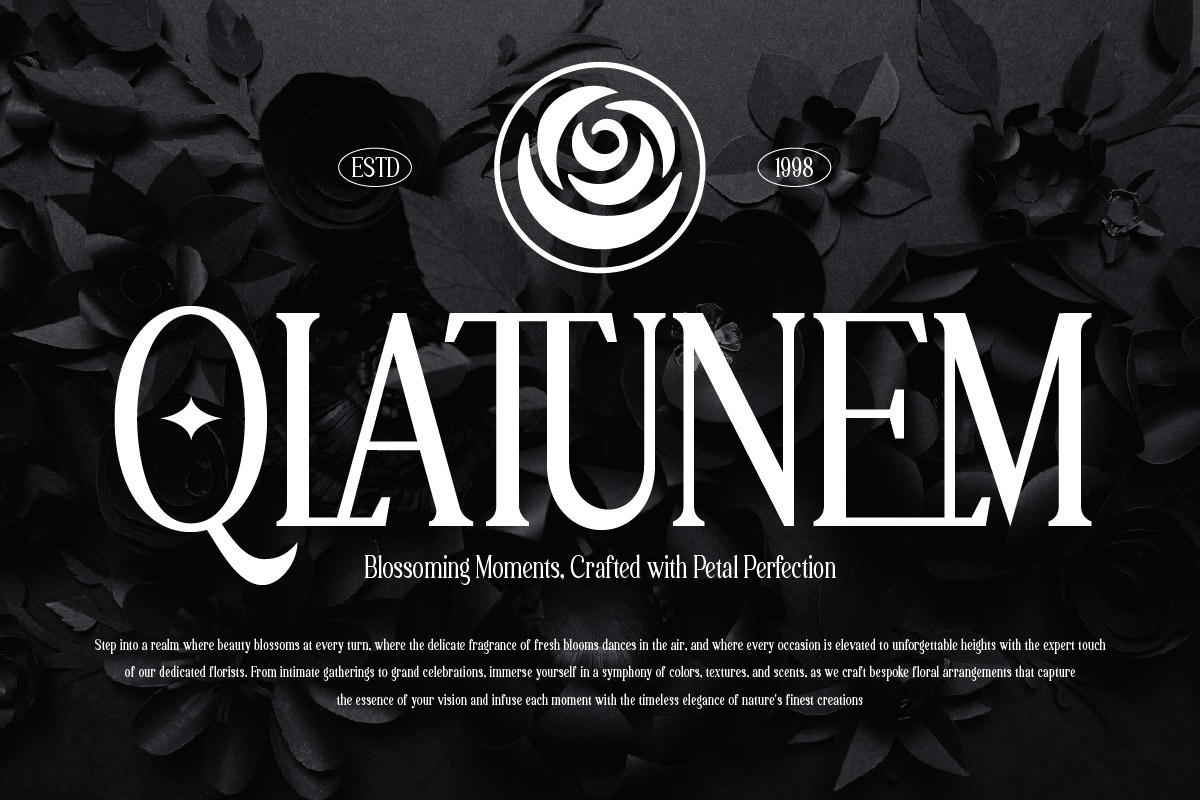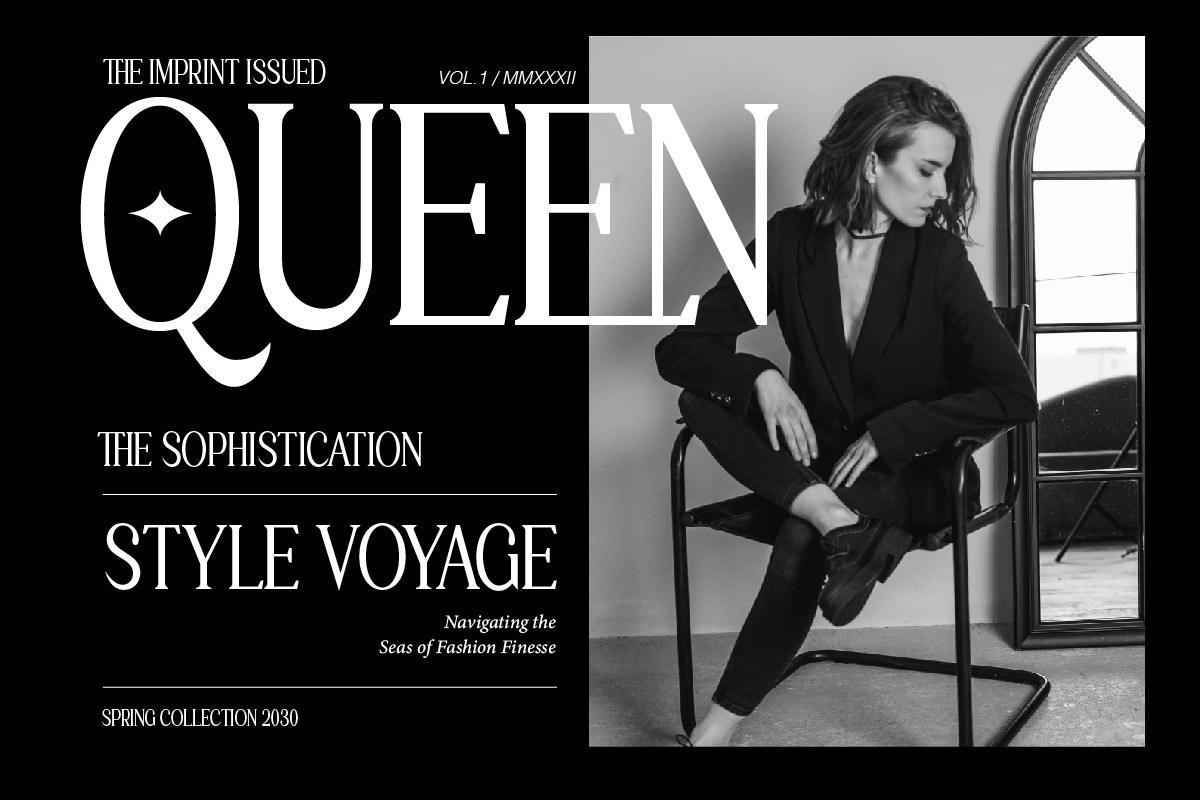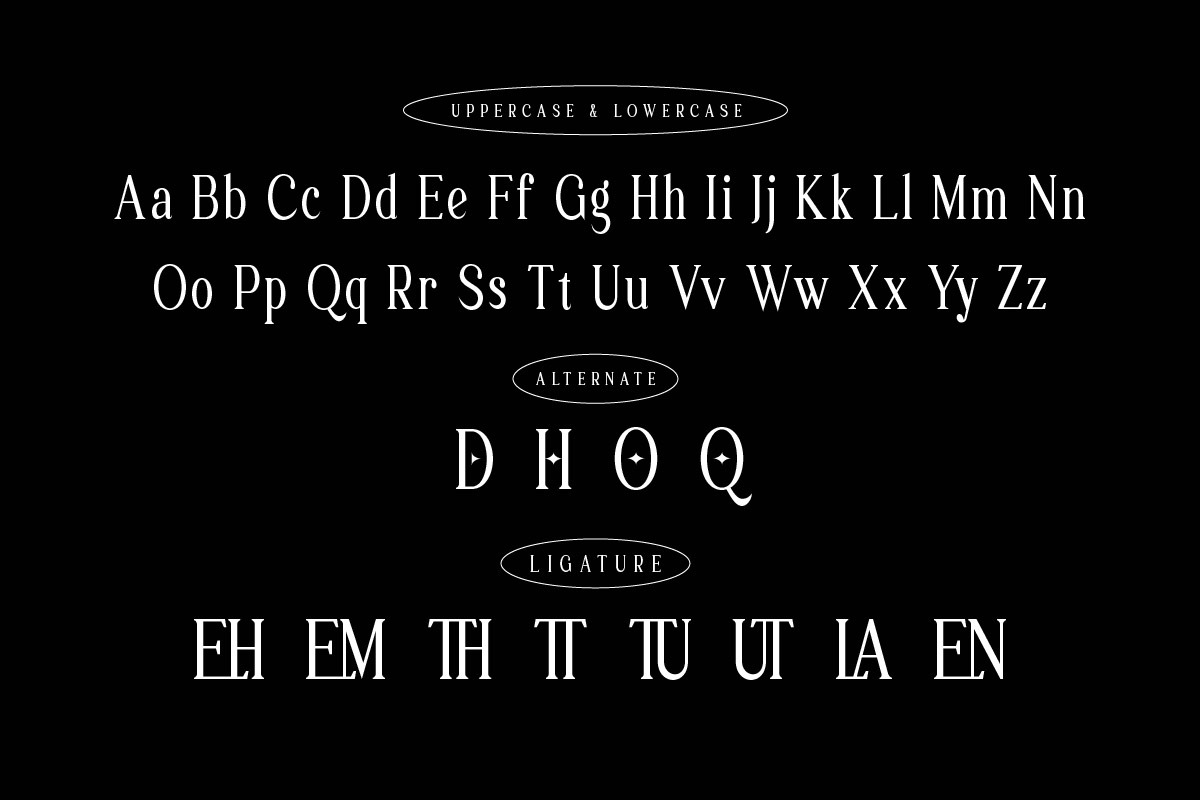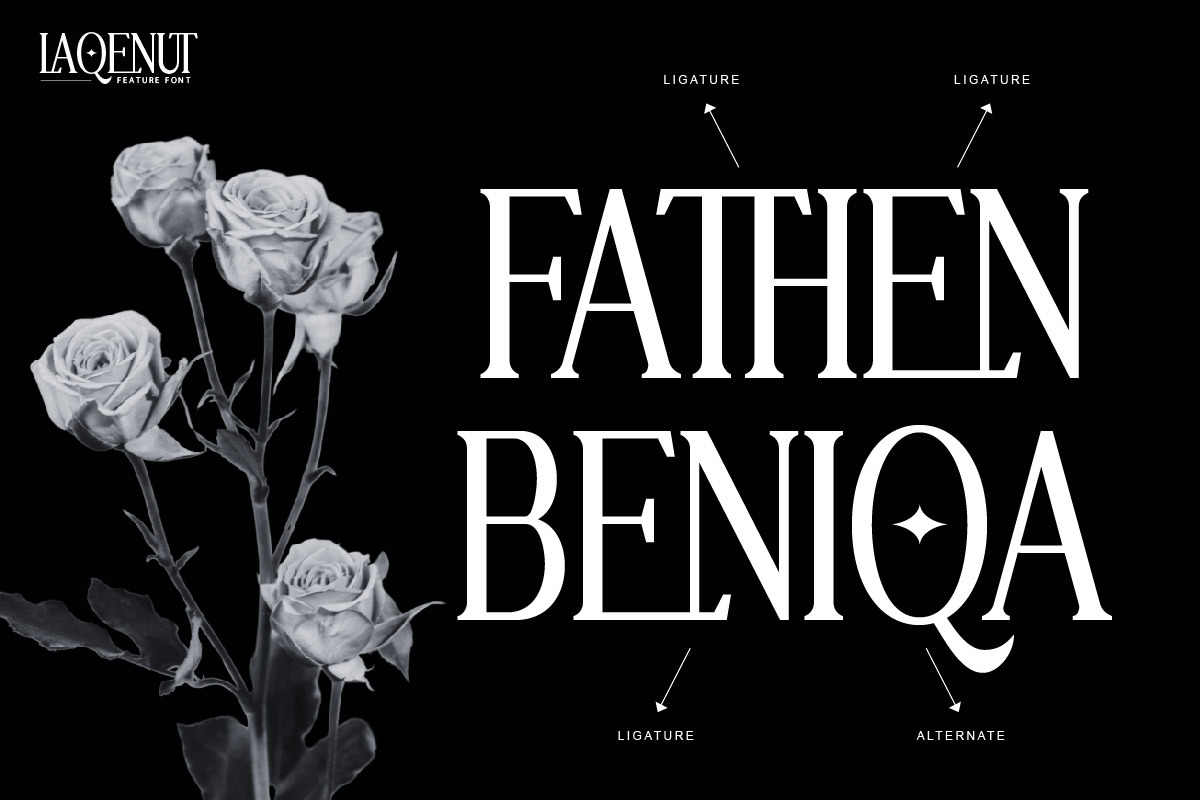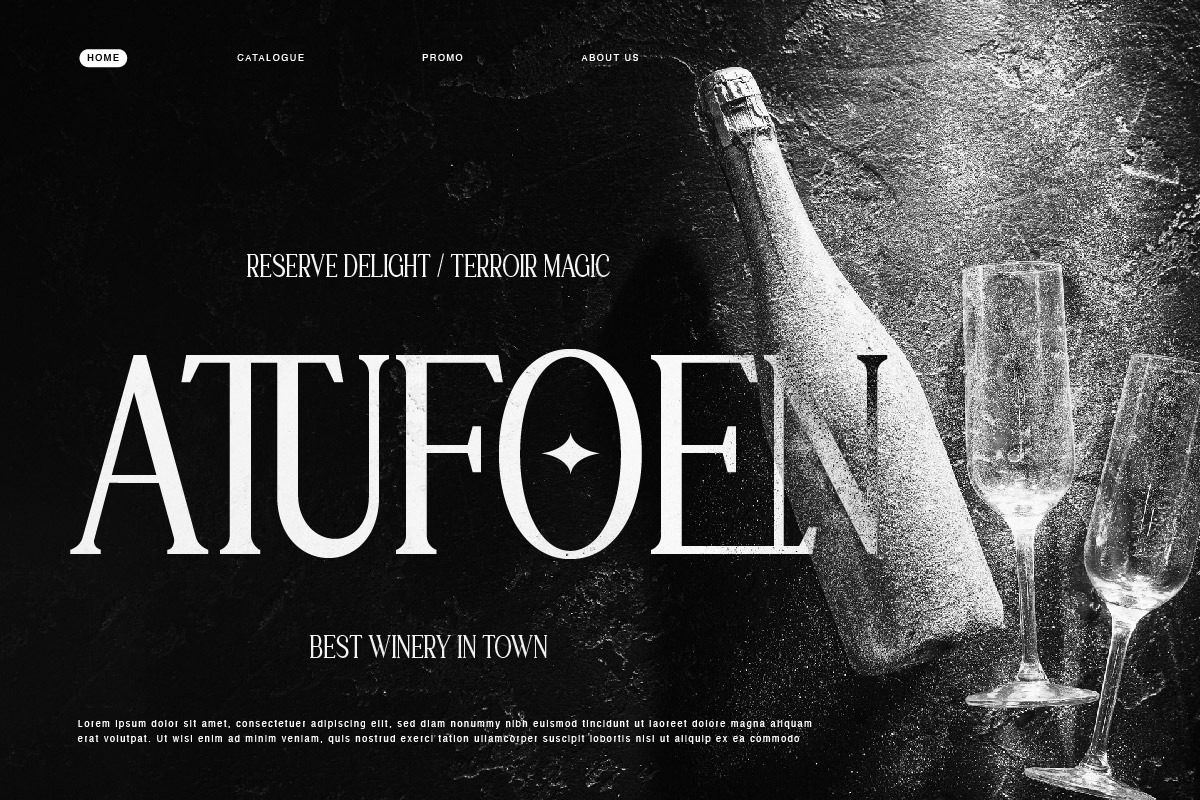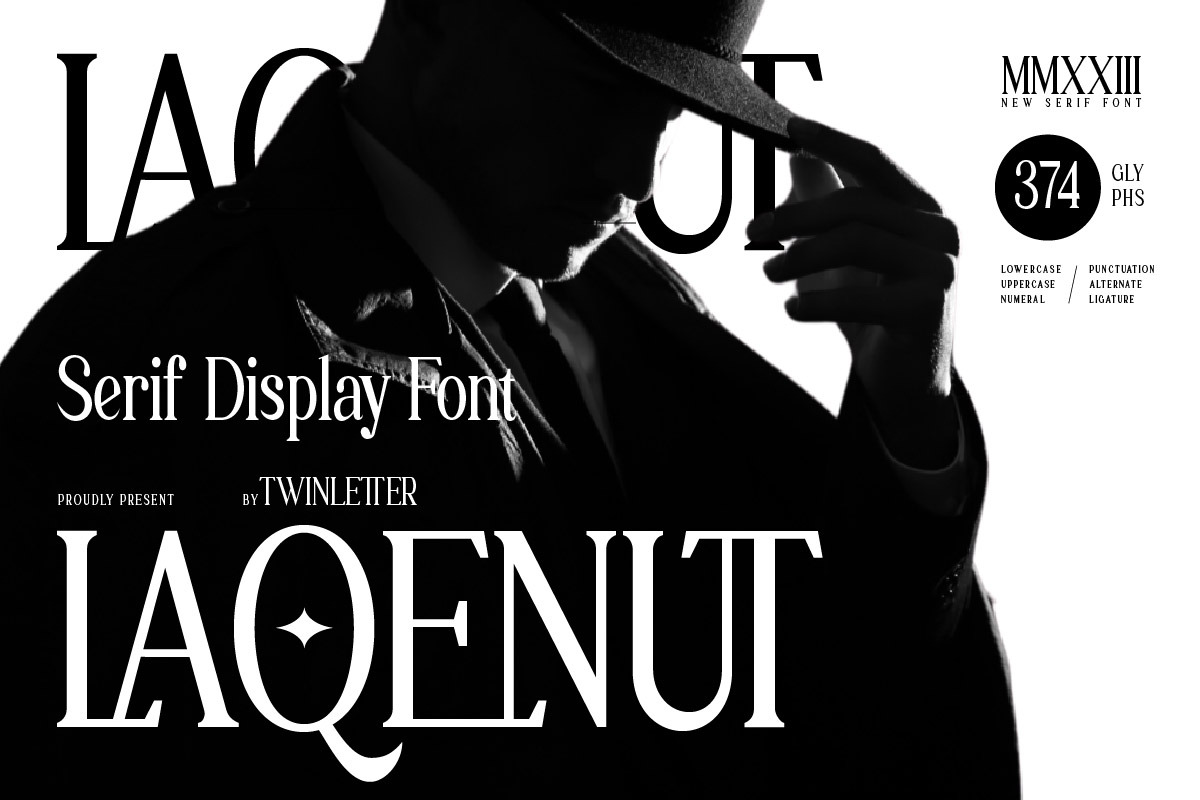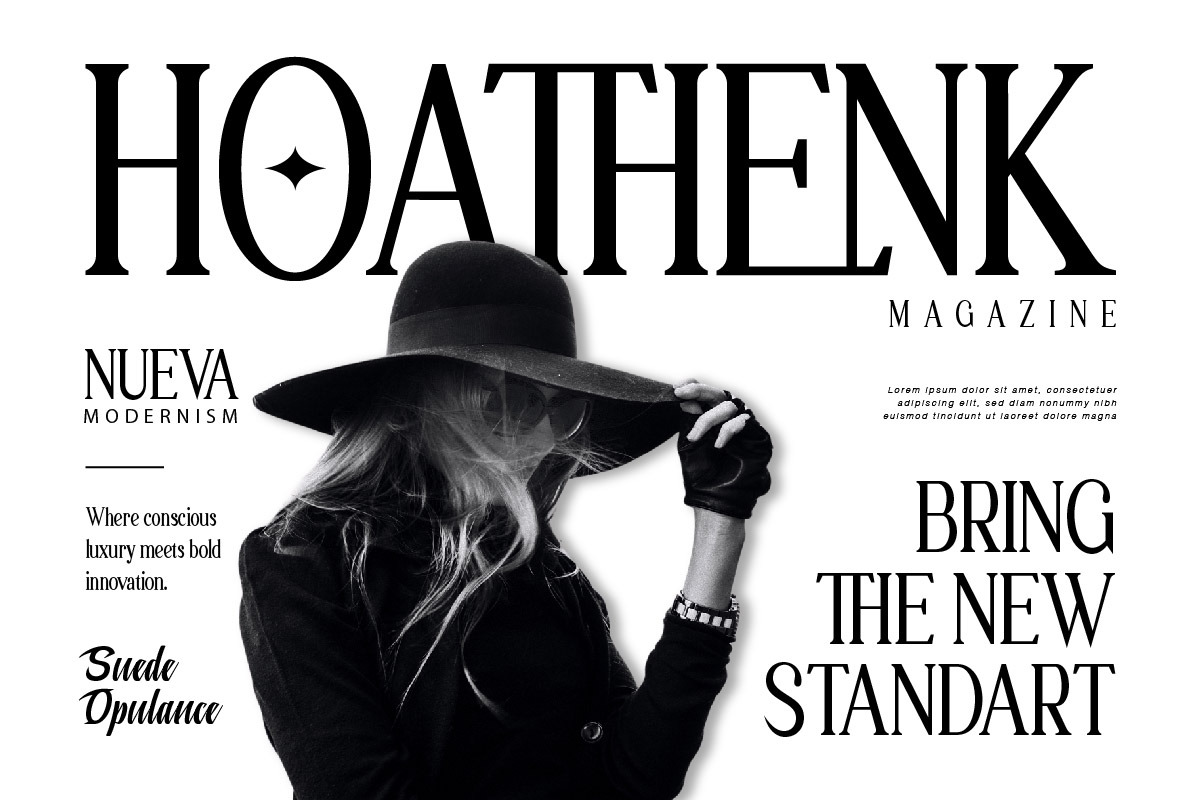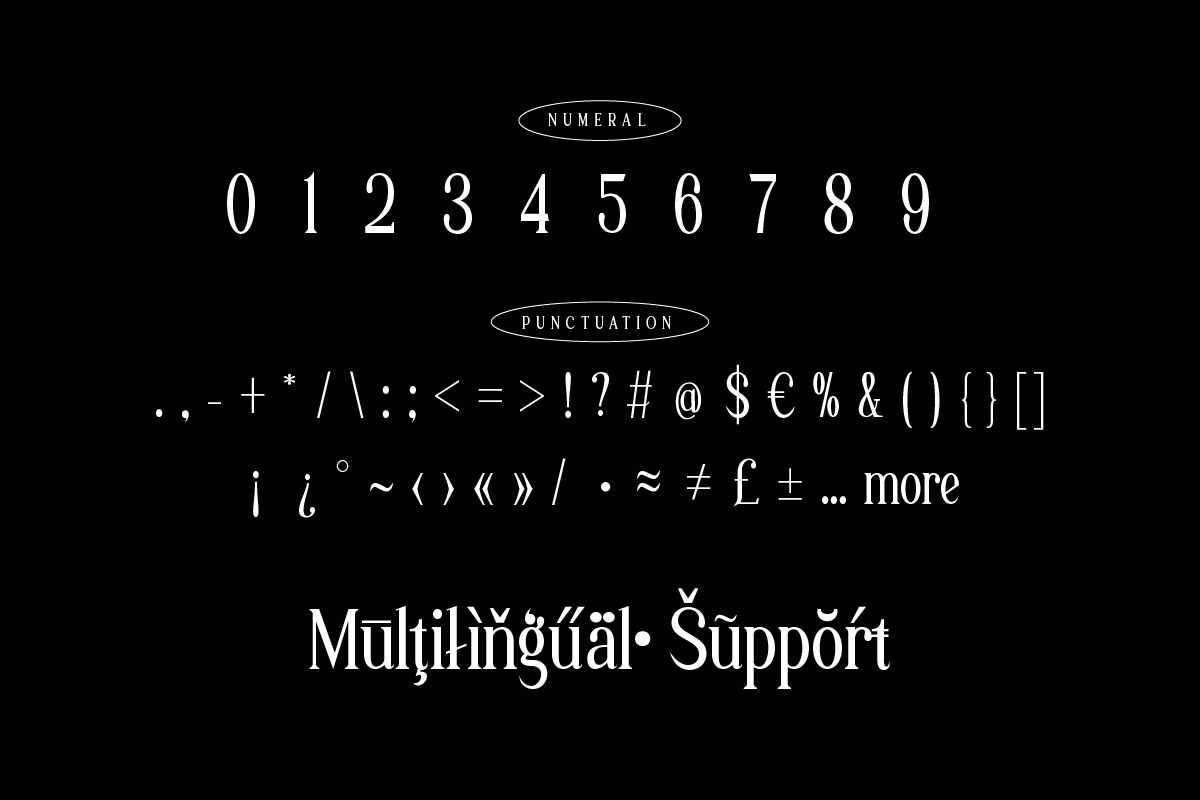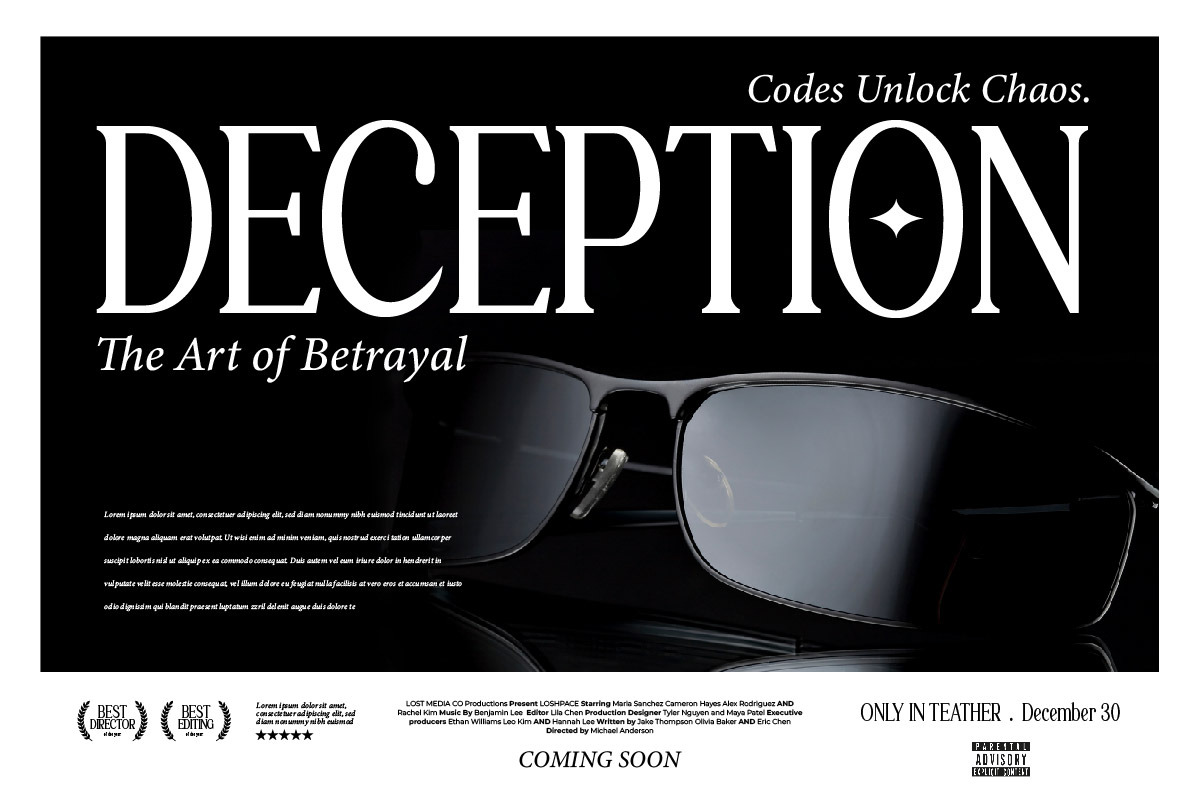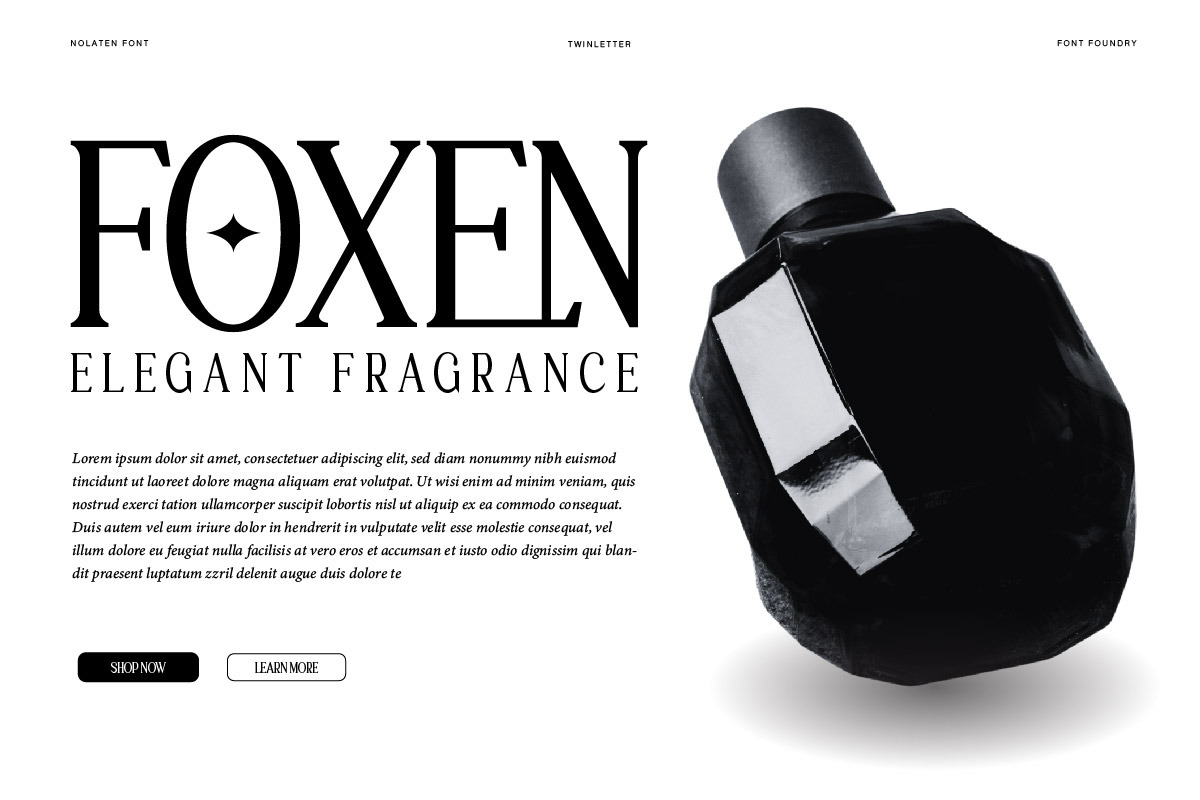
Laqenut - Serif Display Font
Laqenut is a serif display font that exudes a sense of classic sophistication. Its beautifully balanced characters and subtle serifs make it a versatile choice for a wide range of designs. Whether you’re creating a logo for a luxury brand or crafting an eye-catching headline, Laqenut adds a touch of class that is sure to impress. It’s not just a font, it’s a statement. With Laqenut, your designs will speak volumes. It’s perfect for those designs where you need to convey a sense of elegance and sophistication, such as luxury brand logos or high-end invitations. When you use Laqenut, you’re not just choosing a font, you’re choosing a lifestyle.
- Fonts include Multilingual support